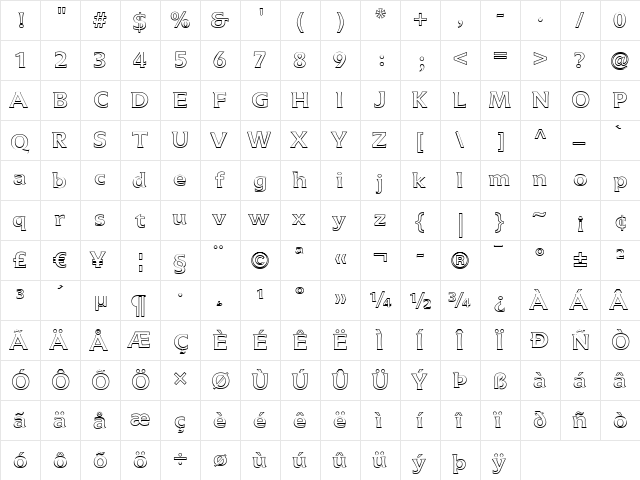
Icone LT BoldOutline Regular Font Preview
Icone LT BoldOutline Regular
Design Context for Icone LT BoldOutline Typeface
Icone LT BoldOutline is built around its visual character rather than neutral utility — its distinctive forms are designed to make an impression at display sizes. The heavy weight commands attention and anchors typographic hierarchies.
Font Pairing: Pair with a clean neutral sans-serif for body copy to let Icone LT BoldOutline's character lead without overwhelming the composition.
Pro Tip: Treat Icone LT BoldOutline as the centrepiece of your typographic hierarchy. One strong heading set in a decorative face can carry an entire layout.